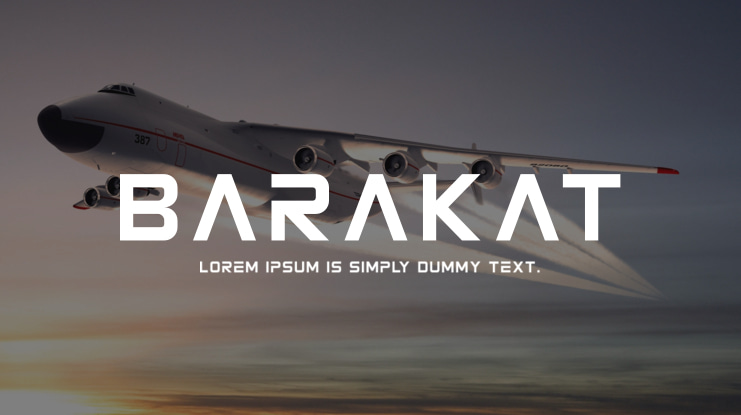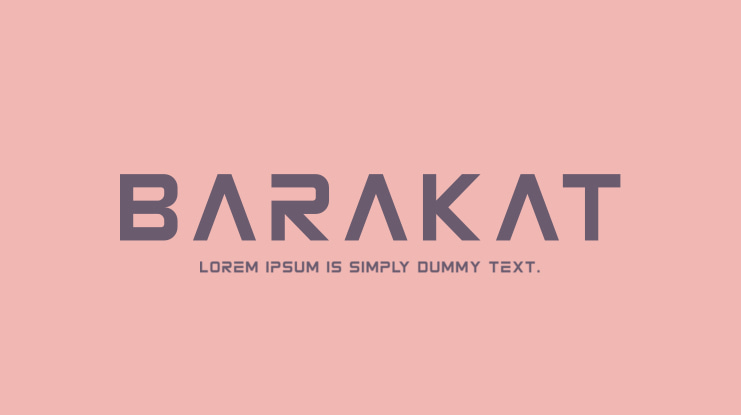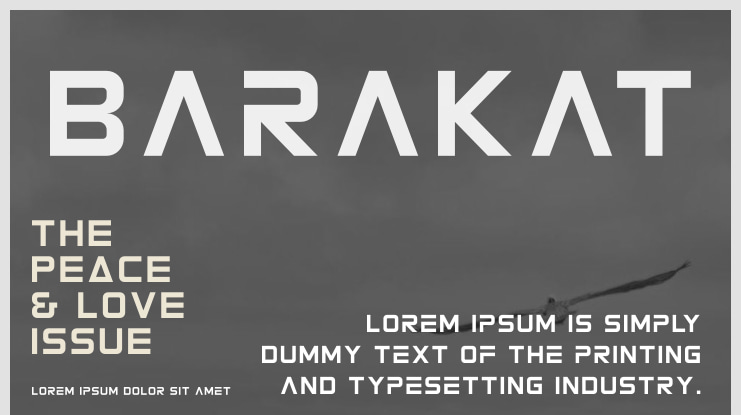
Barakat Font
Barakat | Futuristic Font is ideal for various projects such as logos, branding, homeware designs, packaging, quotes, posters, apparel, book covers, invitations, photography, watermarks, special events, and more that require an elegant script style. When you download or use this font, you agree to the Product Usage Agreement which states that it is for personal use only and no commercial use is allowed. To purchase the full version and commercial license, visit this link: [https://denustudios.com/barakat-futuristic-font/](https://denustudios.com/barakat-futuristic-font/). Corporate licenses are available for corporate use, and for custom licenses, kindly contact us [here](https://denustudios.com/contact/). Any donations are greatly appreciated, and you can donate via our Paypal account [here](https://www.paypal.com/paypalme/denustudios). For more amazing fonts, please visit our store at [https://denustudios.com/](https://denustudios.com/). Thank you.